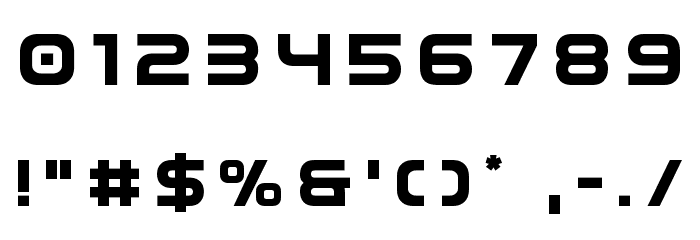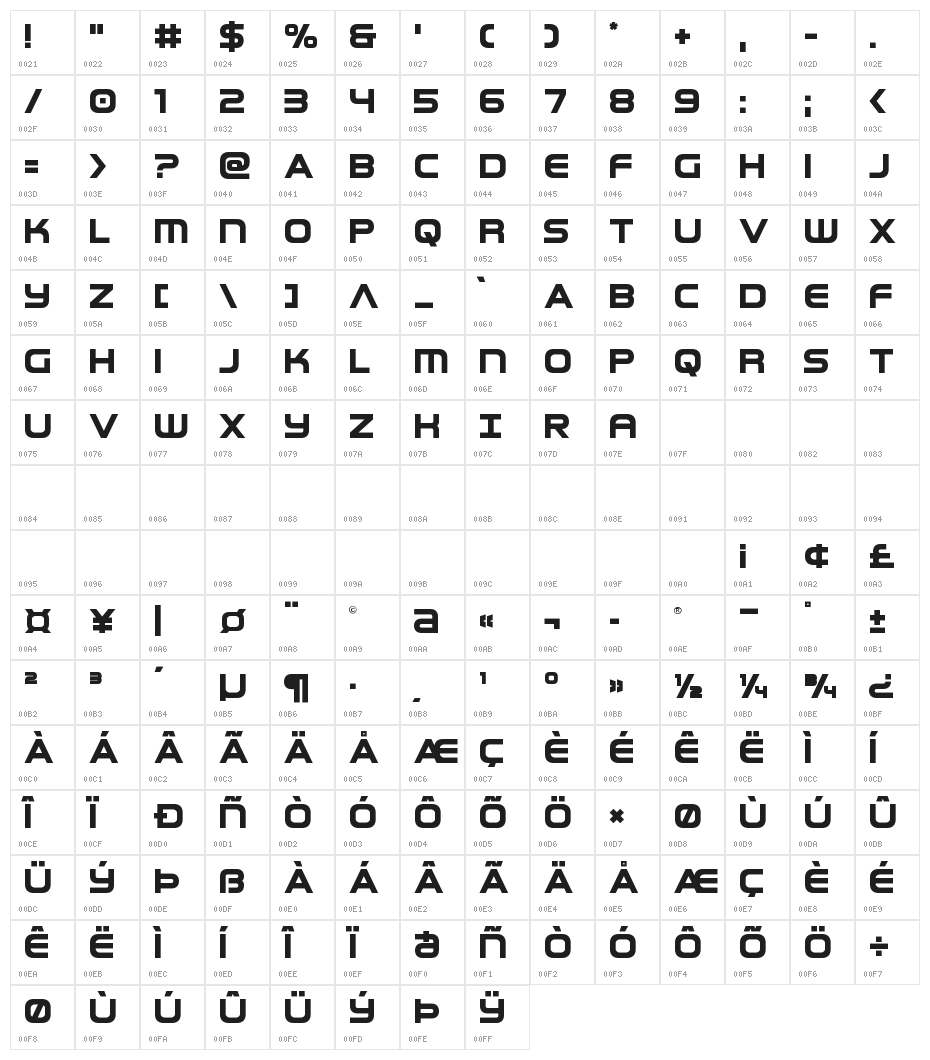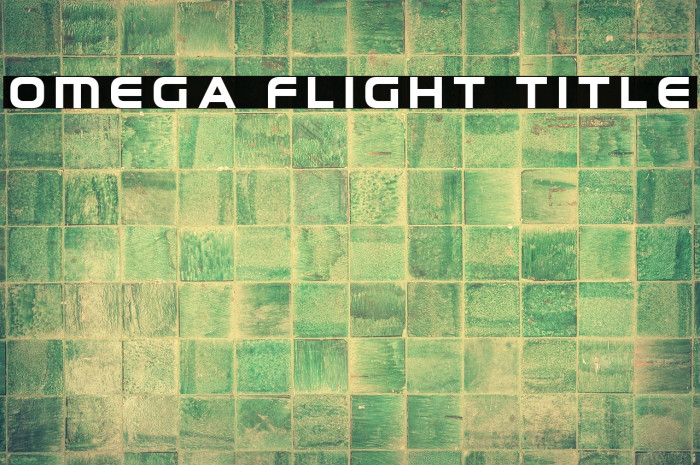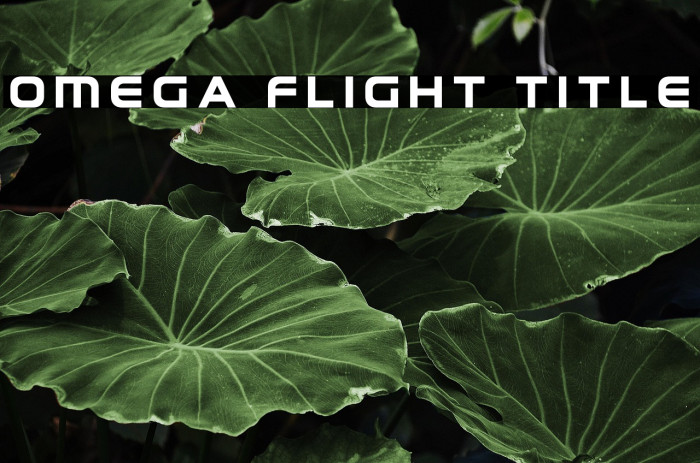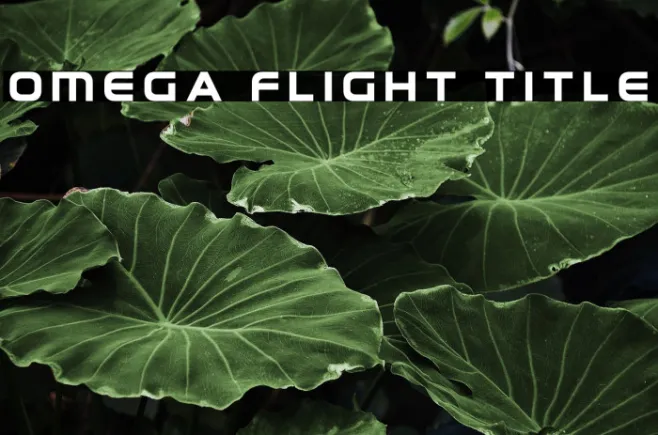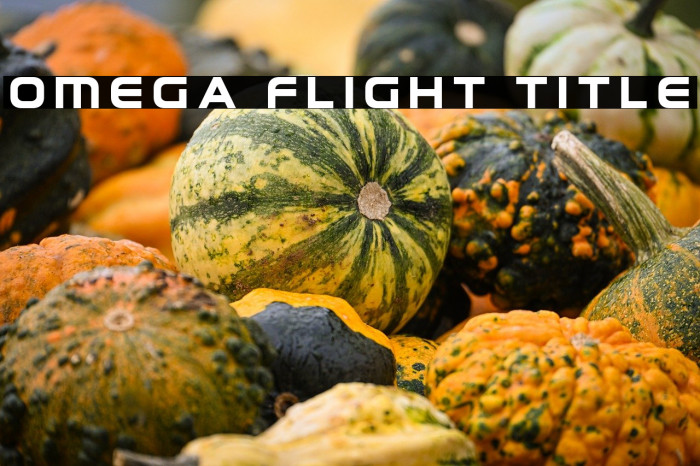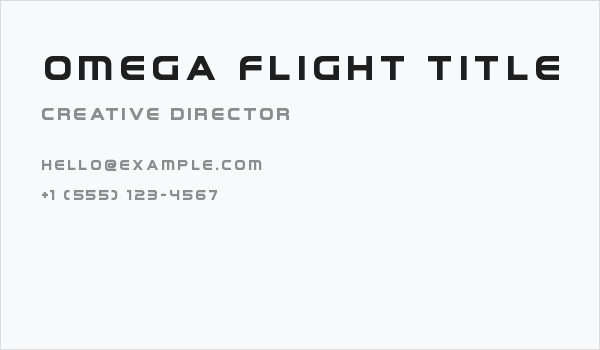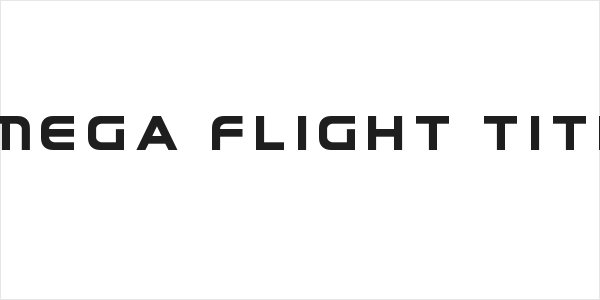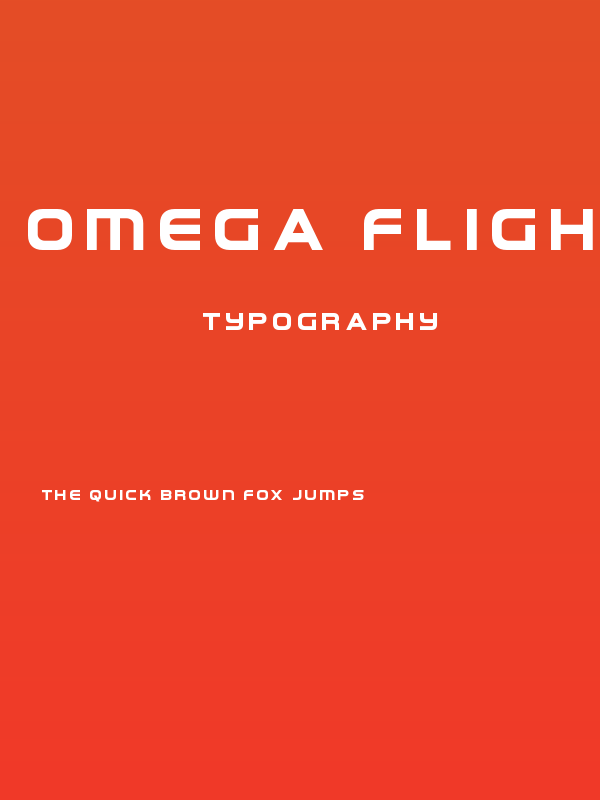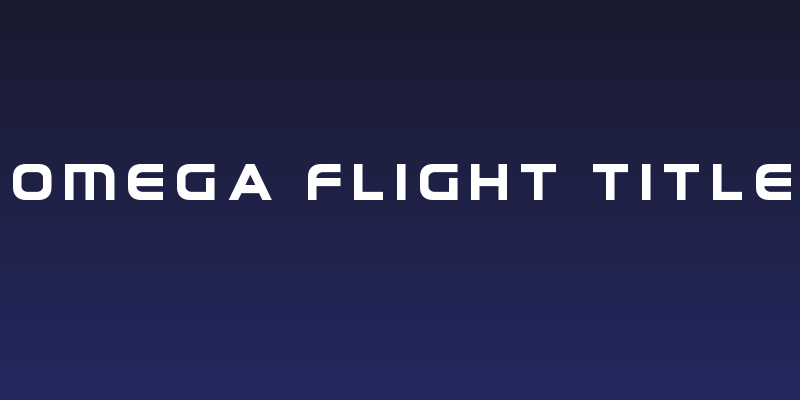
Omega Flight Title Font
Omega Flight Title Description
This font features a bold and futuristic design with geometric elements. The characters are uniformly structured, exhibiting a modern and sleek appearance. The uppercase letters are slightly wider, giving a sense of stability and strength. Lowercase letters maintain the same geometric style, ensuring consistency across the typeface. The numerals are clear and distinct, matching the overall aesthetic. Special characters are designed with the same attention to detail, ensuring they fit seamlessly with the rest of the font. The overall look is clean and professional, making it suitable for various modern applications.